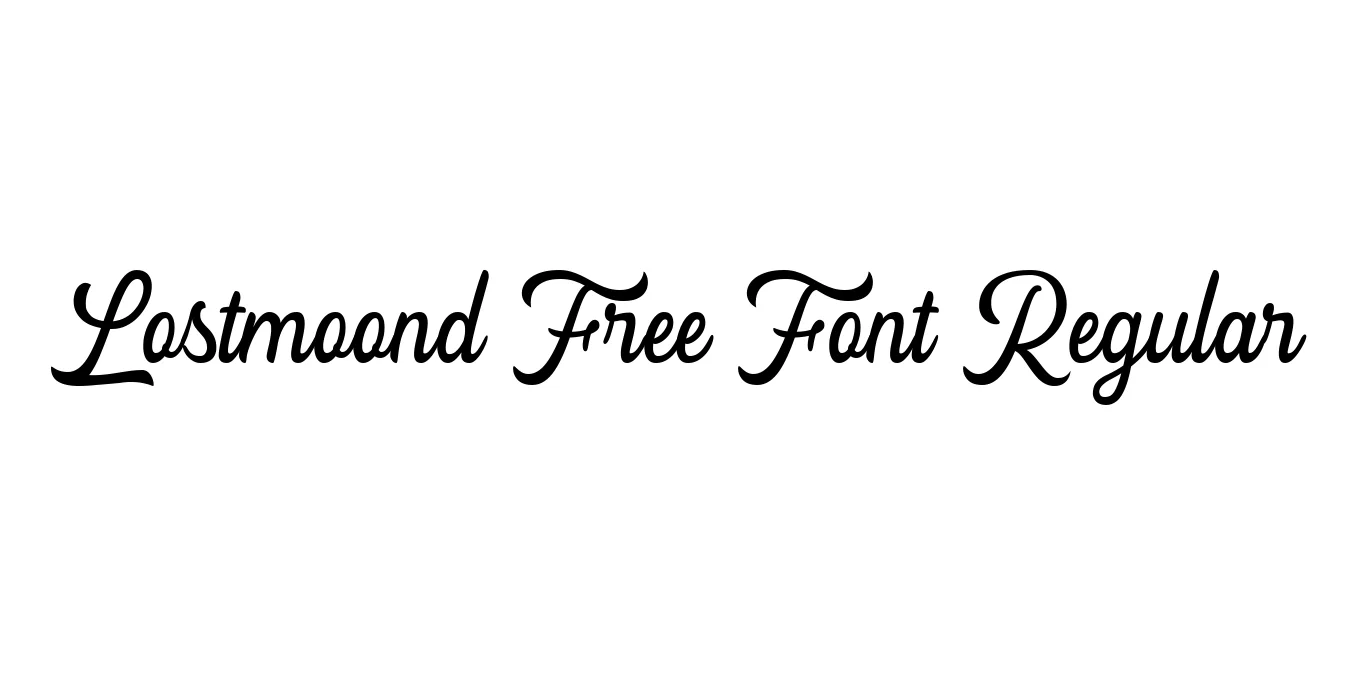
Lostmoond Free Font Regular
Designed by Didi Syahputra
| Category | Script / Signature |
| Designer | Didi Syahputra |
Lostmoond Free Font Regular is a sophisticated brush script typeface designed to evoke a sense of organic elegance and handwritten charm. Developed by Didi Syahputra, this font features fluid, sweeping strokes and a natural rhythm that mimics real ink on paper, making it an ideal choice for projects that require a personal touch and artistic flair.
Its versatile nature allows it to excel in high-end branding, fashion editorials, and modern wedding invitations. The Lostmoond family provides a unique balance between professional legibility and creative expression, ensuring that your headlines and signatures stand out with a timeless, handcrafted aesthetic.
Lostmoond Free Font Regular Best Uses
Perfect for creating luxury logos and cohesive brand identities.
Ideal for elegant wedding invitations, RSVP cards, and menus.
Excellent for high-impact quote graphics and lifestyle photography overlays.
Suitable for apparel labels and magazine editorial headers.